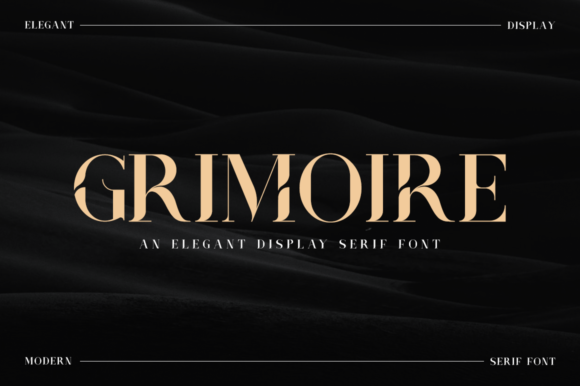
Introducing Grimoire Font: A Stylish and Elegant Serif Font
Are you looking for a font that can add a touch of sophistication and elegance to your designs? Look no further than the Grimoire font. This stylish and elegant serif font is sure to capture your heart with its incredibly distinct and timeless style. In this article, we’ll take a closer look at the Grimoire font, its features, and how you can use it to create spectacular designs.
What is Grimoire Font?
Grimoire is a serif font that boasts a unique and classic style. Its elegant lines and curves make it perfect for a wide range of design projects, from luxury branding to high-end packaging. The font is designed to be versatile, making it suitable for use in various contexts, including headings, titles, and body text.
What Makes Grimoire Font Special?
So, what sets Grimoire apart from other fonts? Here are a few features that make it a standout:
- Distinct and Timeless Style: Grimoire’s classic design ensures that it will remain stylish and relevant for years to come.
- Elegant Lines and Curves: The font’s smooth lines and curves create a sophisticated look that’s perfect for high-end designs.
How to Use Grimoire Font in Your Designs
Grimoire’s versatility makes it suitable for a wide range of design applications. Here are a few ideas to get you started:
- Luxury Branding: Use Grimoire to create sophisticated logos, business cards, and letterheads.
- Packaging Design: Add a touch of elegance to your product packaging with Grimoire’s stylish and classic design.
- Web Design: Use Grimoire to create beautiful headings and titles for your website.
- Print Design: Grimoire is perfect for creating stunning print materials, such as brochures, posters, and flyers.
Tips and Tricks for Using Grimoire Font
Here are a few tips and tricks to help you get the most out of Grimoire:
- Experiment with Different Sizes: Grimoire looks great in a variety of sizes, so don’t be afraid to experiment and find the perfect size for your design.
- Pair it with Other Fonts: Grimoire pairs well with a range of other fonts, so try combining it with different fonts to create a unique look.
- Use the Swashes and Glyphs: Take advantage of Grimoire’s PUA encoding and use the swashes and glyphs to add a touch of elegance to your designs.
In conclusion, Grimoire is a stylish and elegant serif font that’s perfect for designers looking to add a touch of sophistication to their designs. With its incredibly distinct and timeless style, PUA encoding, and versatility, Grimoire is sure to become a favorite in your font collection.